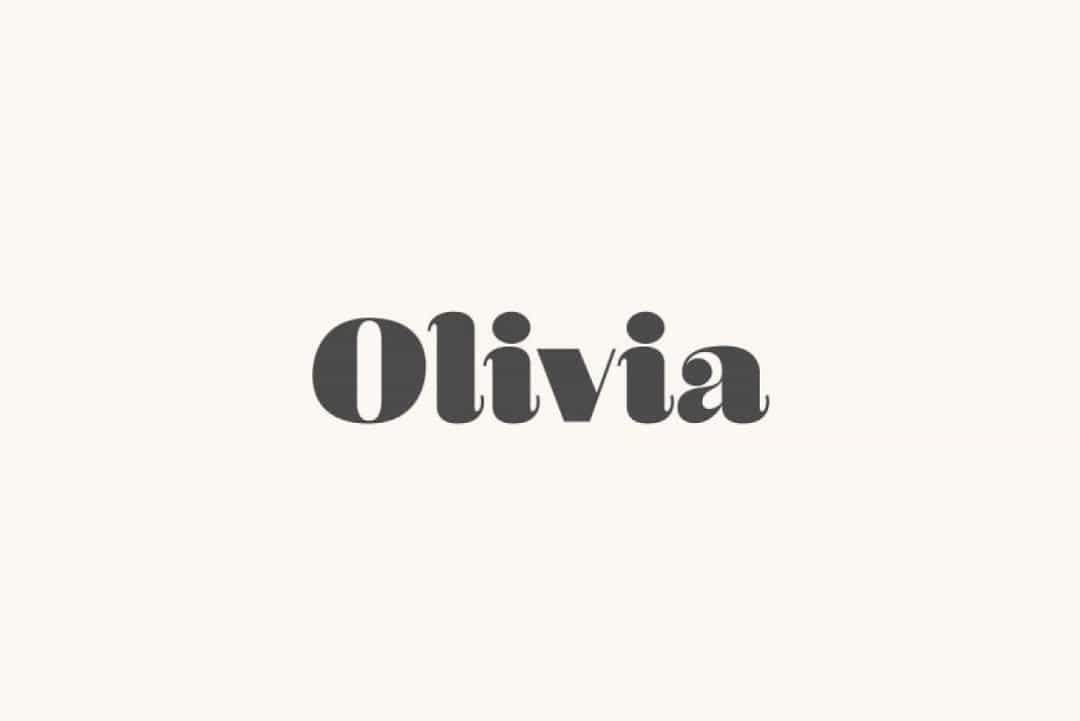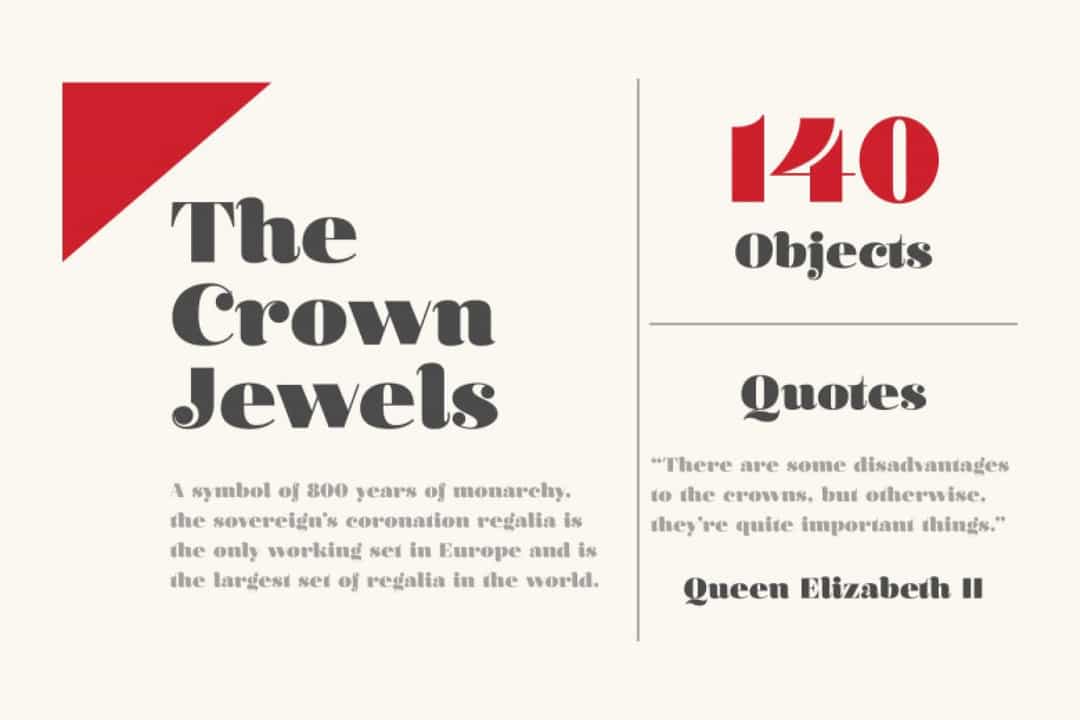
Olivia A Curvy Typeface,create bold images and gorgeous headlines with vintage flair using Olivia. Its distinctive lines, wide curves and short tails add character and class. Olivia makes the ideal font choice for wedding invitations, logos and quotes for branding editorials as well as many other uses.